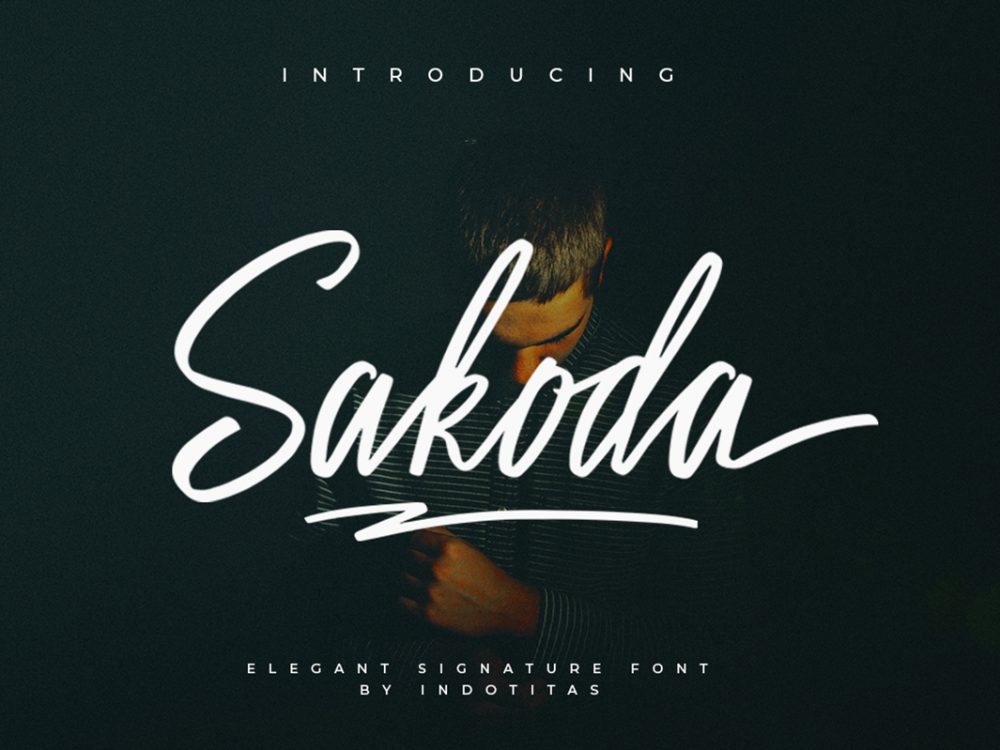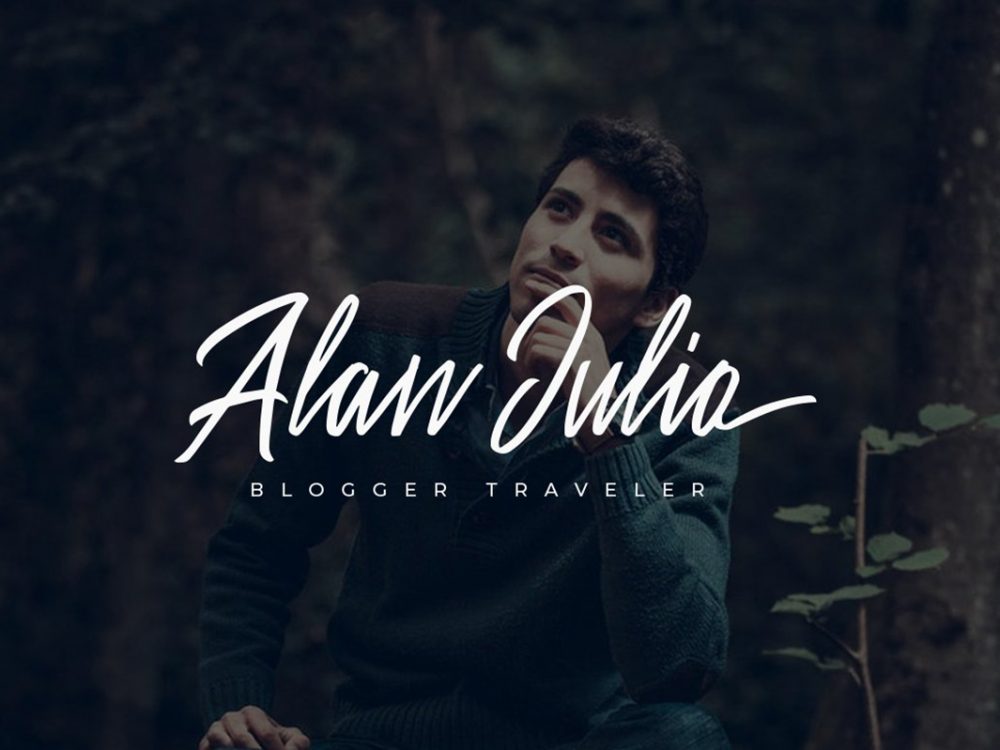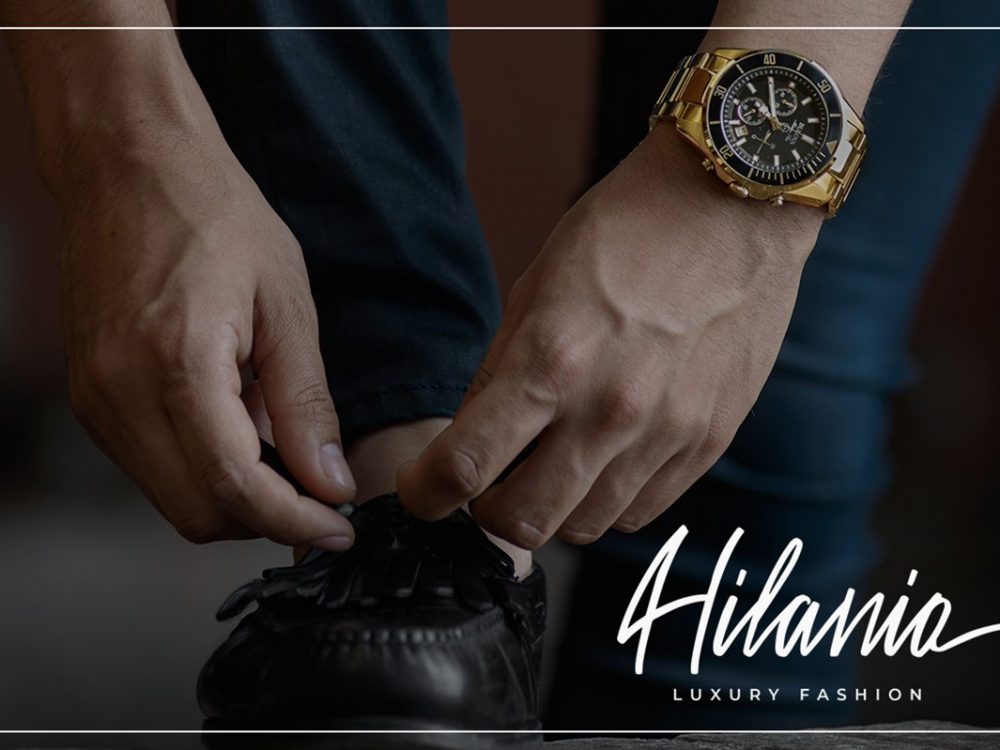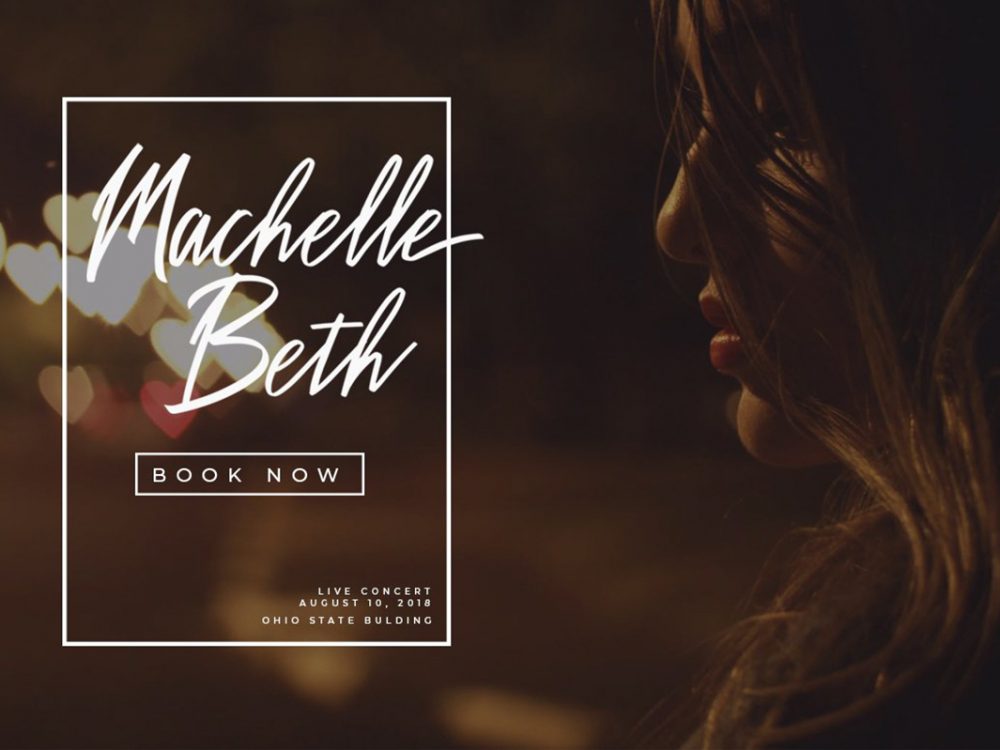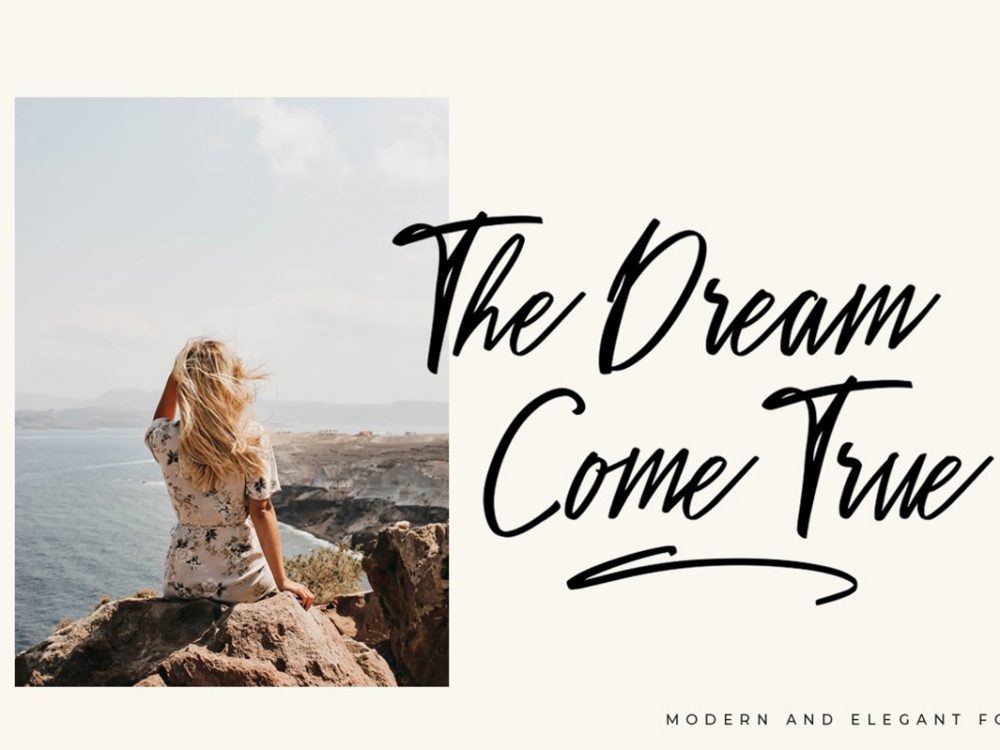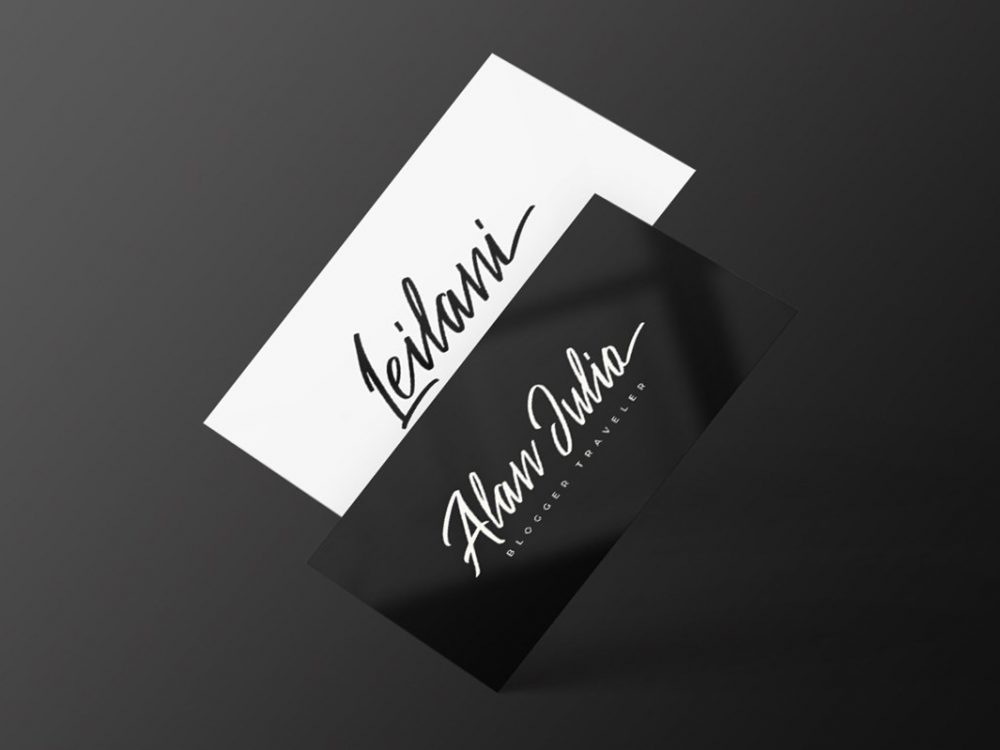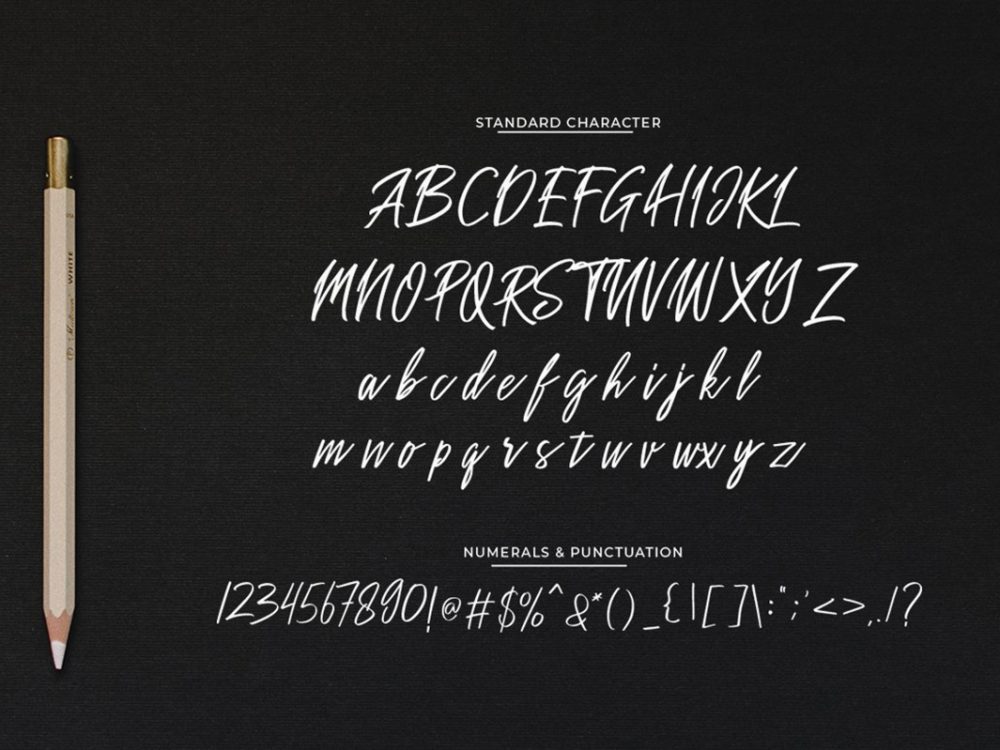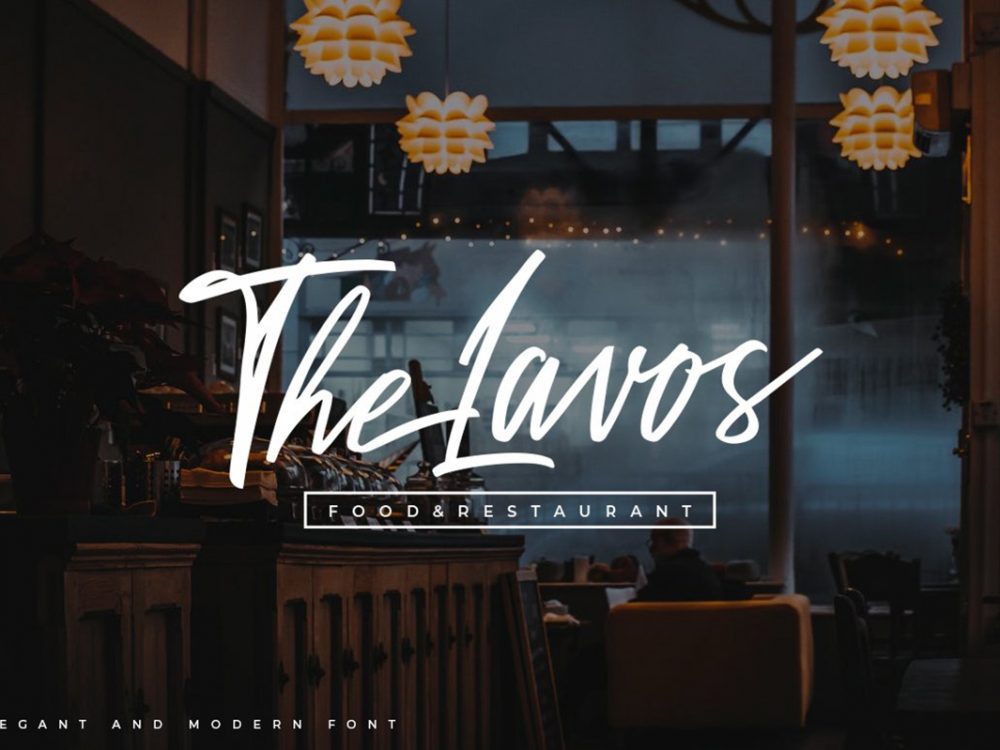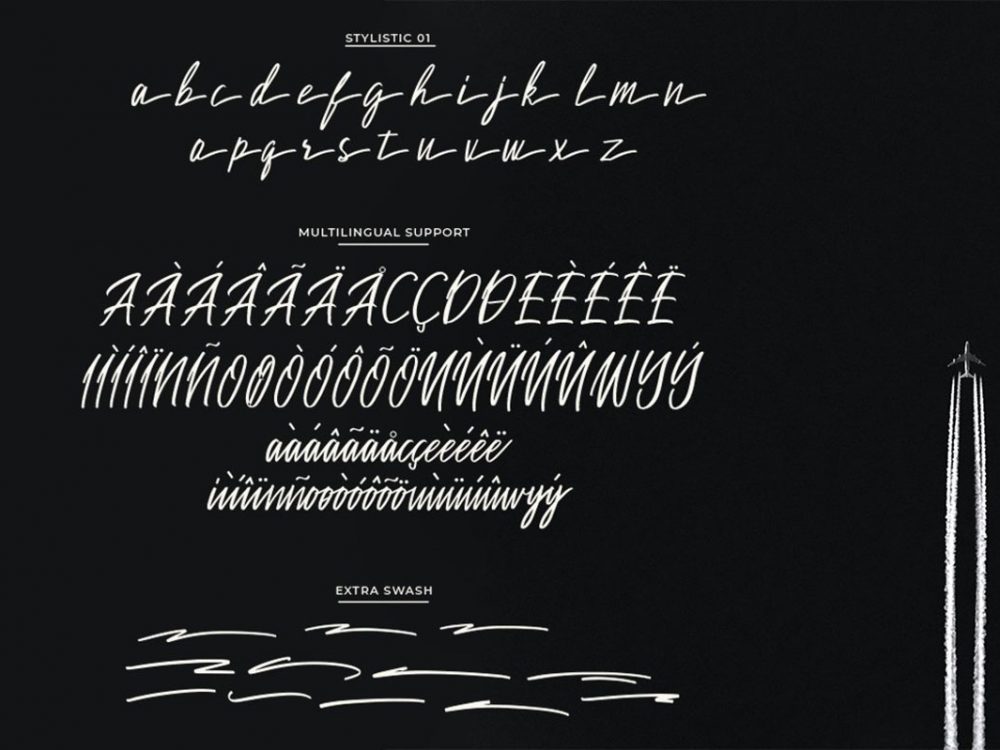
Sakoda Signature Script Free Font
If you are looking for an elegant modern font for your design projects, then Sakoda Signature Script Font is perfect for you. You can use this font in various design projects such as posters, cards, invitations, flyers, prints, and more. If you wish to use it for commercial work, please buy the full version.